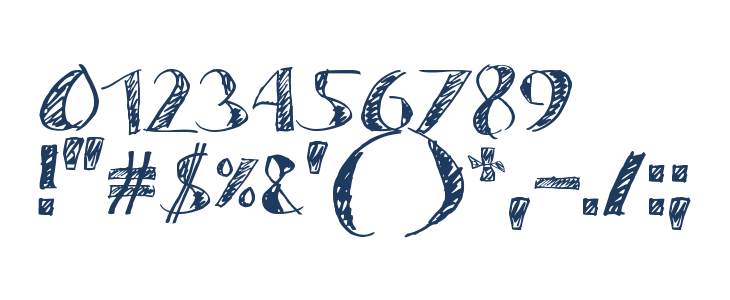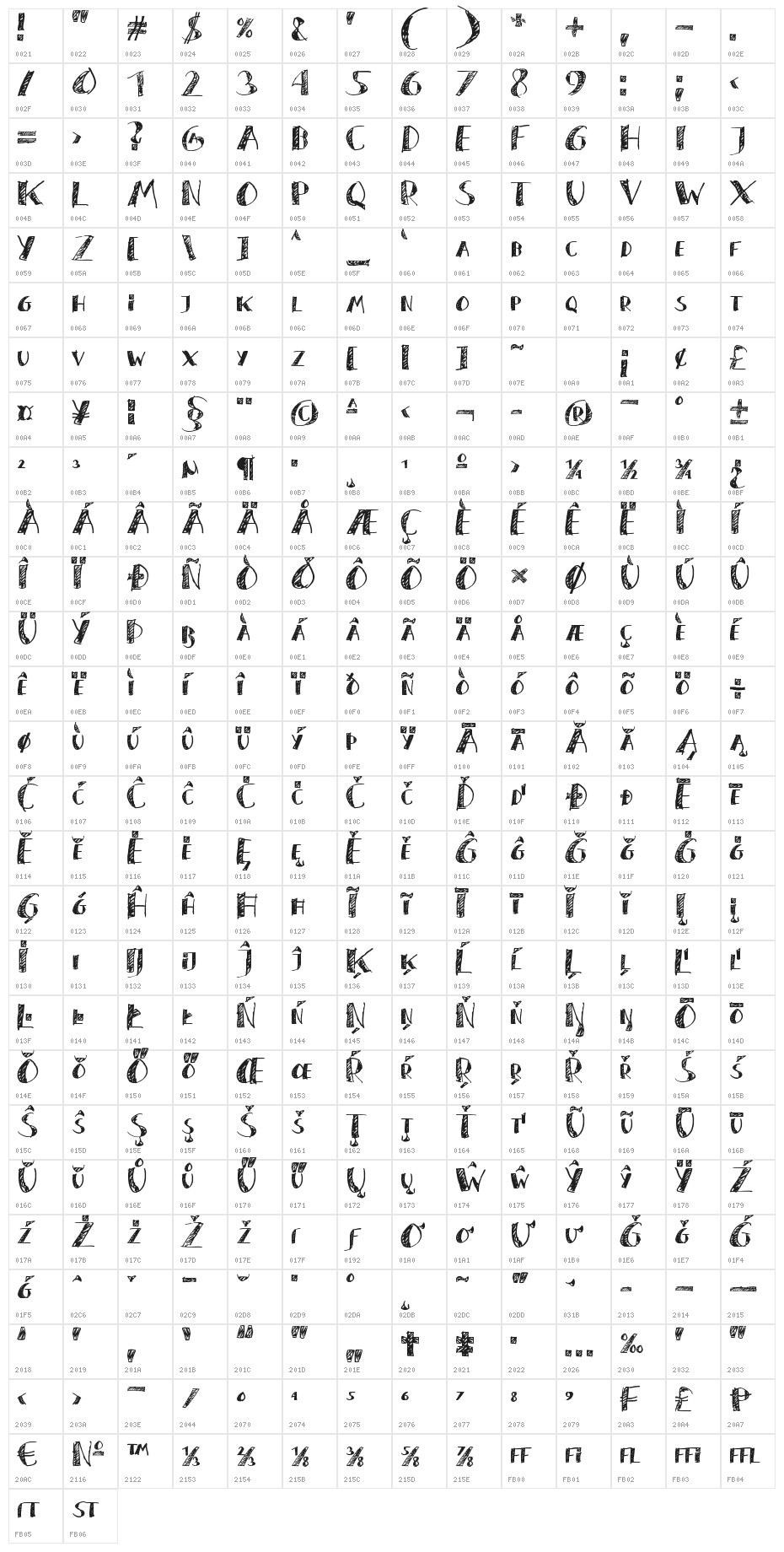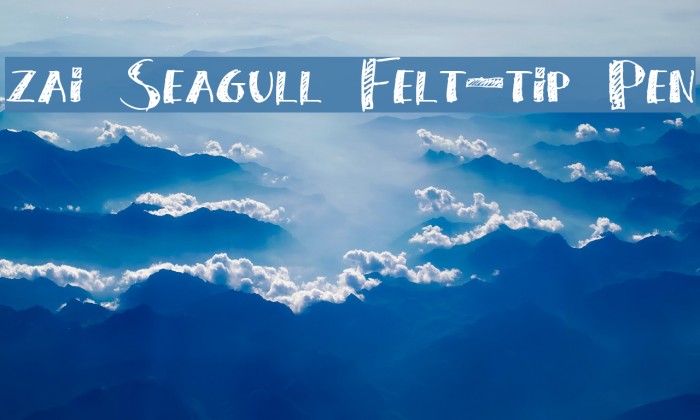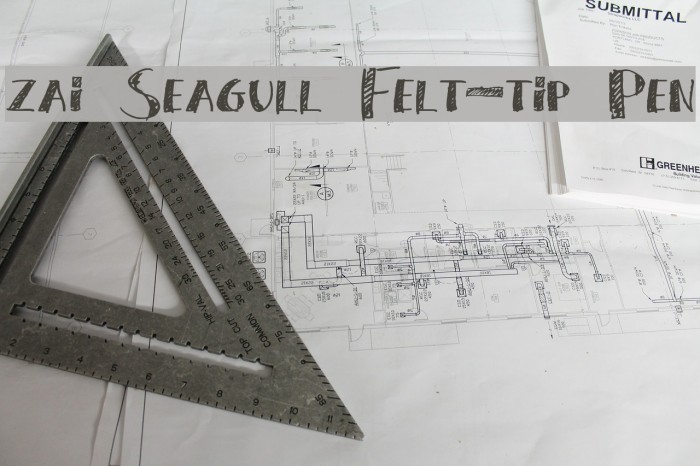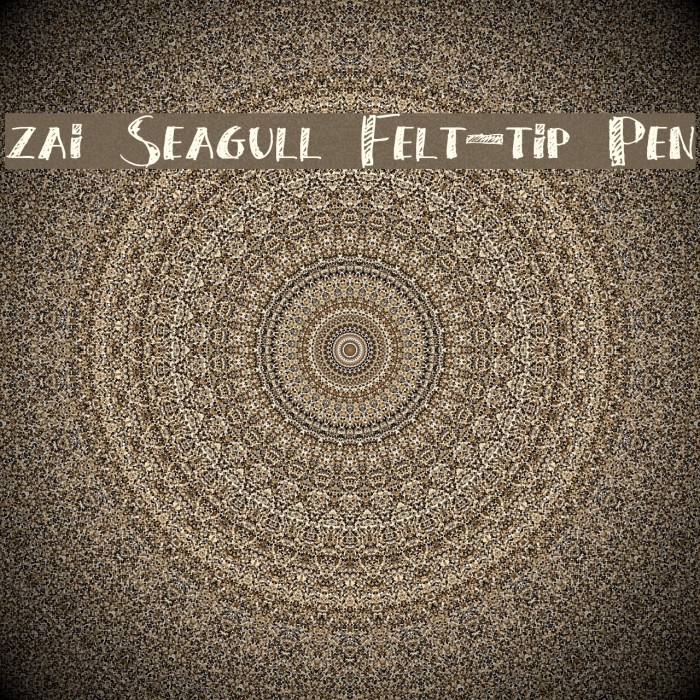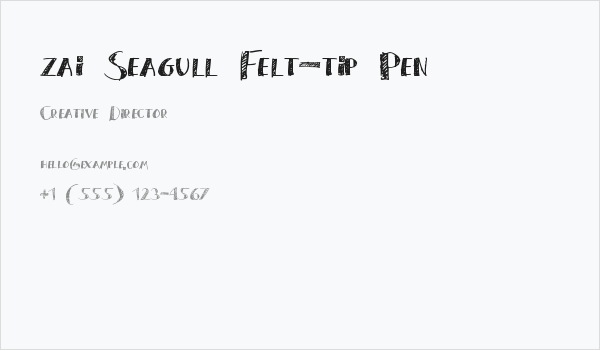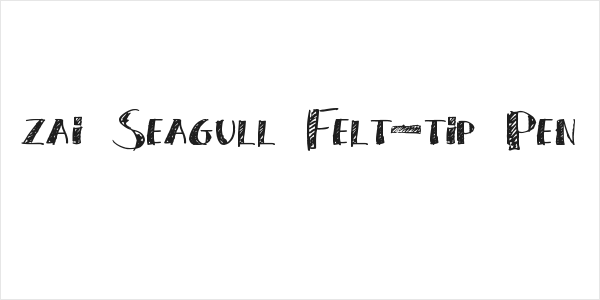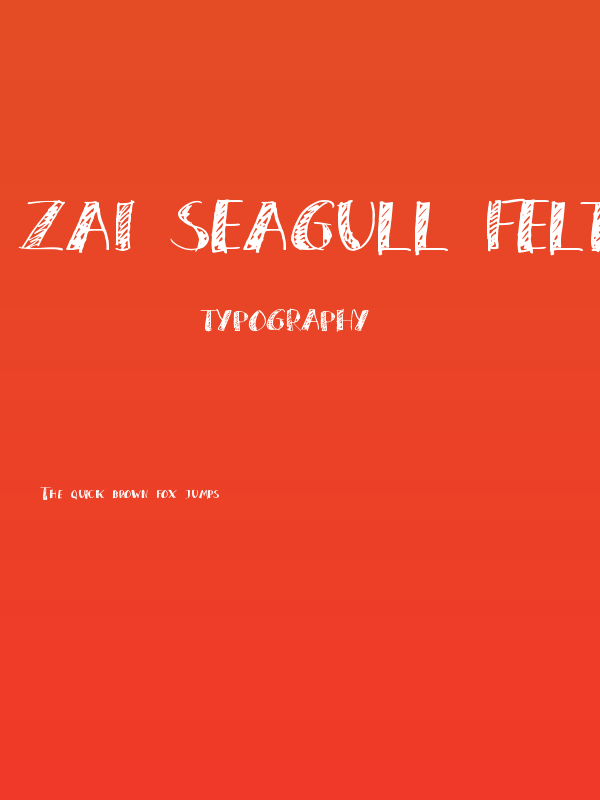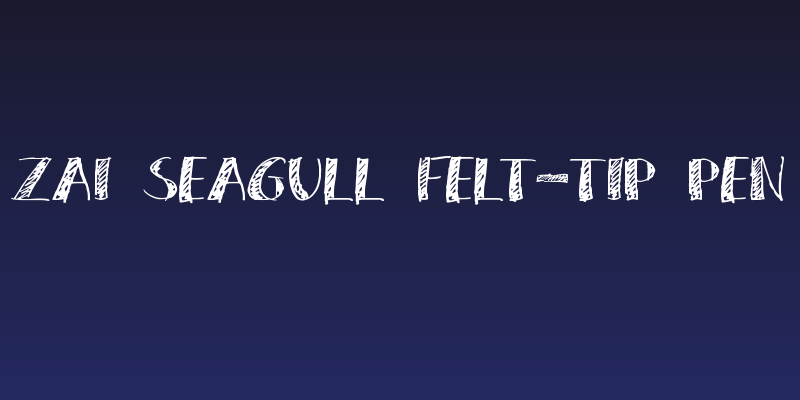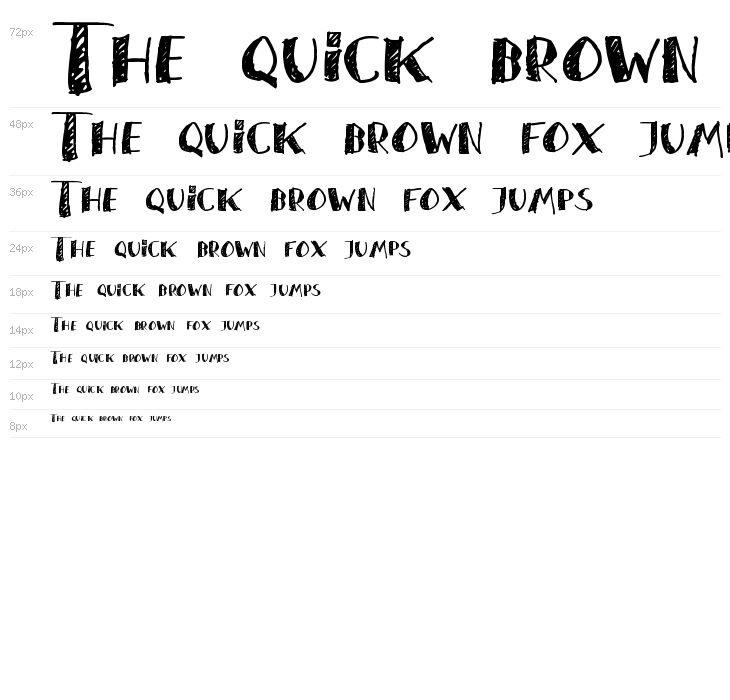
zai Seagull Felt-tip Pen Font
zai Seagull Felt-tip Pen Description
This font exudes a playful and artistic vibe, reminiscent of hand-drawn lettering with a felt-tip pen. The characters are bold and dynamic, featuring a mix of thick and thin strokes that create a sense of movement and energy. The uppercase and lowercase letters maintain a consistent style, with slightly irregular shapes that add to the handcrafted feel. Numbers and special characters follow the same aesthetic, ensuring a cohesive look across all text. The overall appearance is informal and expressive, making it perfect for projects that require a personal touch.
| Proposed Projects | Ideal for creative projects such as posters, greeting cards, children's books, and artistic branding. |